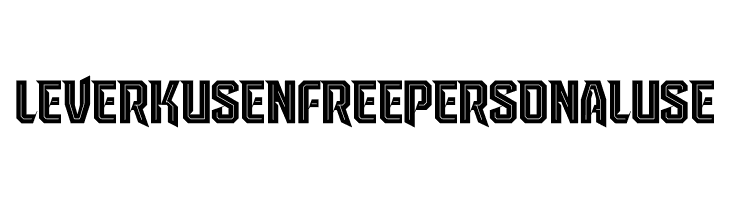
A bold, geometric font with angular lines and a three-dimensional outline effect.
A bold, modern font with a dynamic, futuristic style.
Bold, dynamic font with a shadow effect and tight spacing.
A bold, geometric font with a 3D effect and sharp angles.
A bold, three-dimensional font with sharp angles and a modern, impactful design.